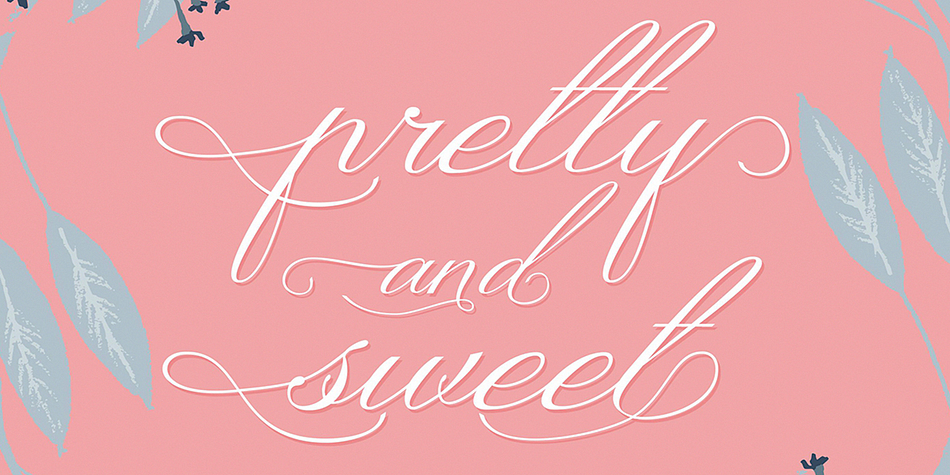
Adediala
Adediala is a hand display and modern calligraphy font published by Area Type Studio.
Adediala Script is calligraphy Script typeface, with characters dance along the baseline and elegant touch.
With almost 386 glyphs.
Opentype features with stylistic alternates, ligatures, and multiple language support.
Can be used for various purposes.such as logos, wedding invitation, heading, t-shirt, letterhead, signage, label, news, posters, badges etc.
Adediala Script is calligraphy Script typeface, with characters dance along the baseline and elegant touch. With almost 386 glyphs. Opentype features with stylistic alternates, ligatures, and multiple language support.
Can be used for various purposes.such as logos, wedding invitation, heading, t-shirt, letterhead, signage, label, news, posters, badges etc.